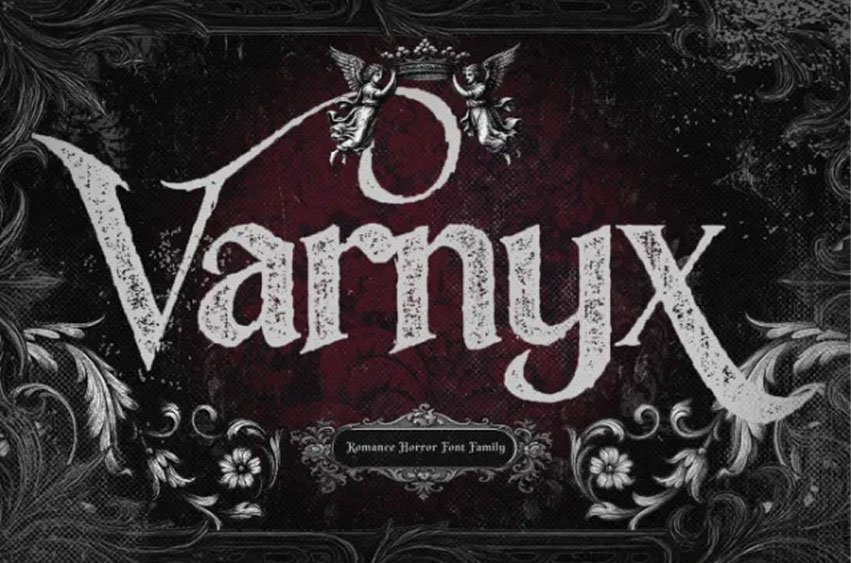
Varnyx Font Display Font that blends the dramatic beauty of romantic lettering with the gritty aesthetic of horror. Varnyx is a romance horror-themed font family that features four captivating gothic styles—Clean Gothic Romance, Textured Gothic, Distort Textured Gothic, and Raw Textured Gothic—with a dramatic touch ideal for dark romanticism, vintage mystery, and modern gothic editorial projects.
With a full complement of characters (uppercase, lowercase, numerals, punctuation, and special symbols), you’ll get a total of four font styles in OTF, TTF formats, ready to be used for various needs. Varnyx is perfect for horror book covers, movie titles, gothic posters, exclusive perfume branding, tarot designs, elegant Halloween invitations, and artistic death-themed creative content.
Use Varnyx to create a melancholic, magical, and mysterious atmosphere—where each letter looks like a dark rose petal blooming under the moonlight.